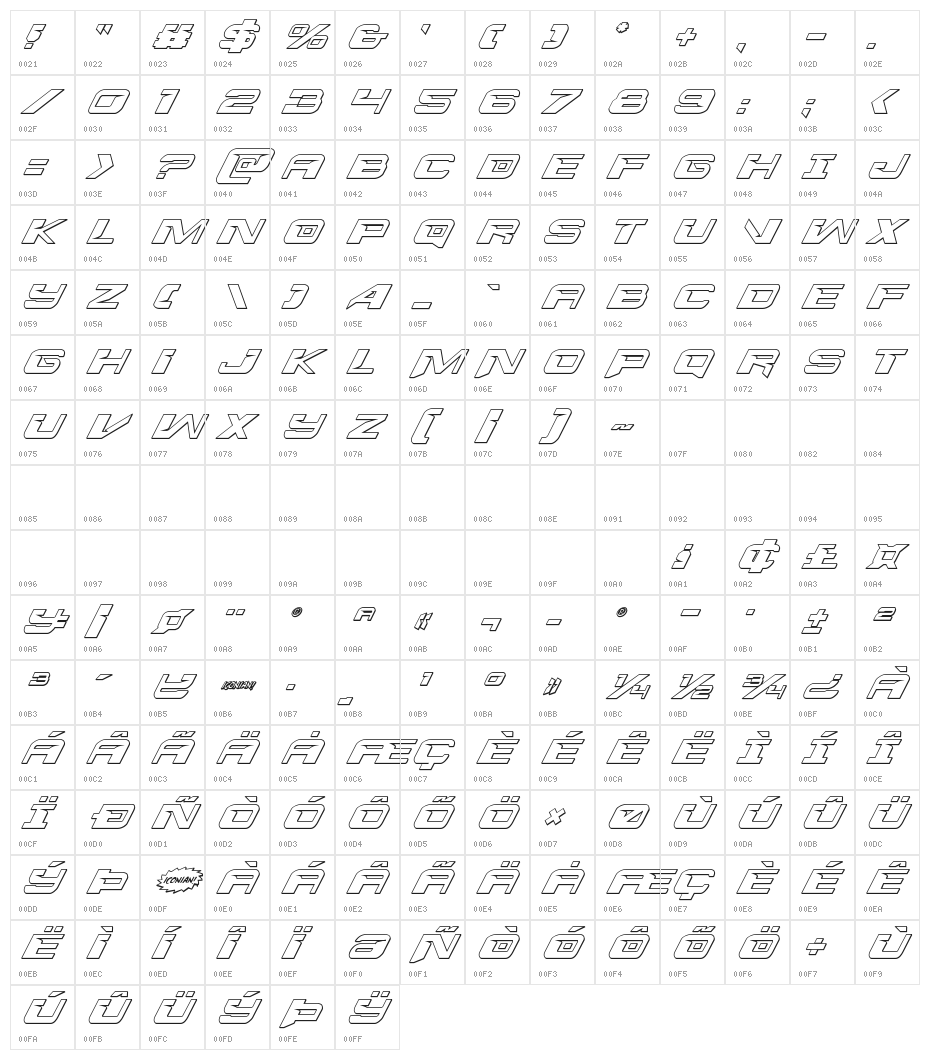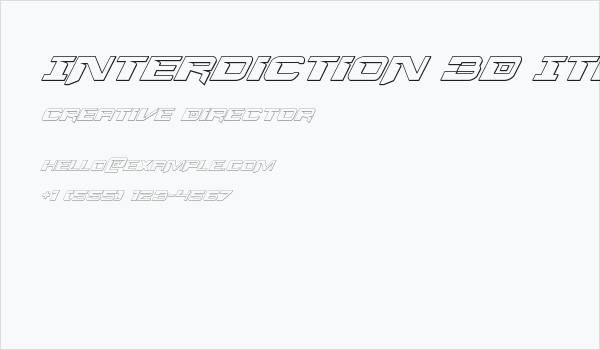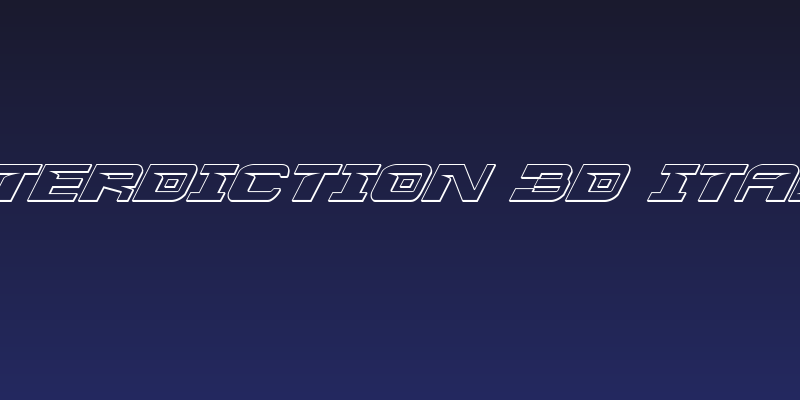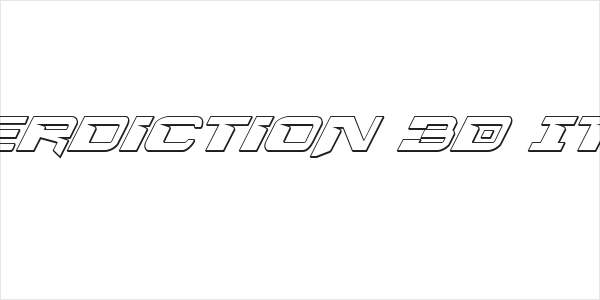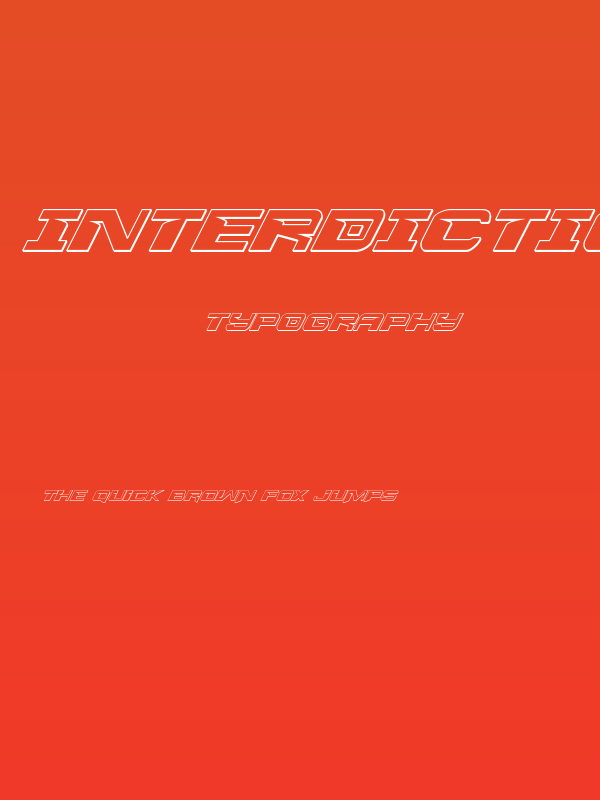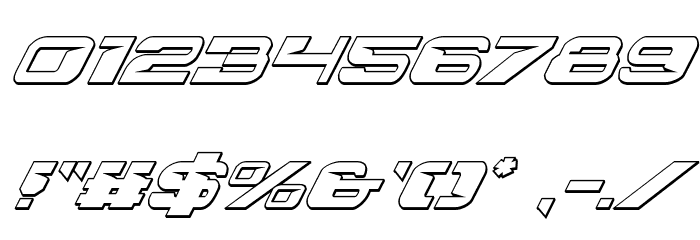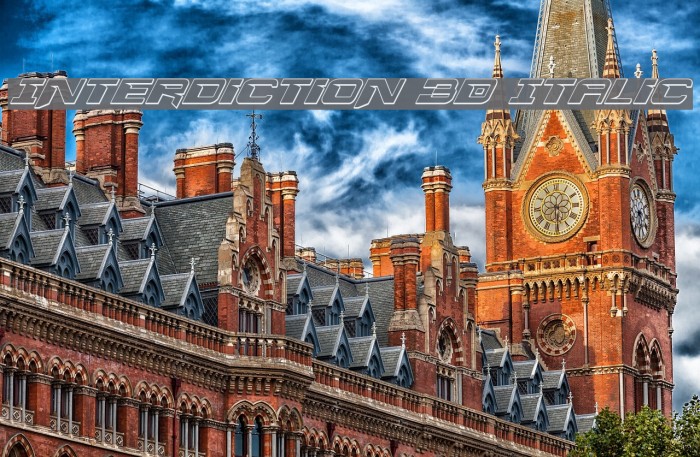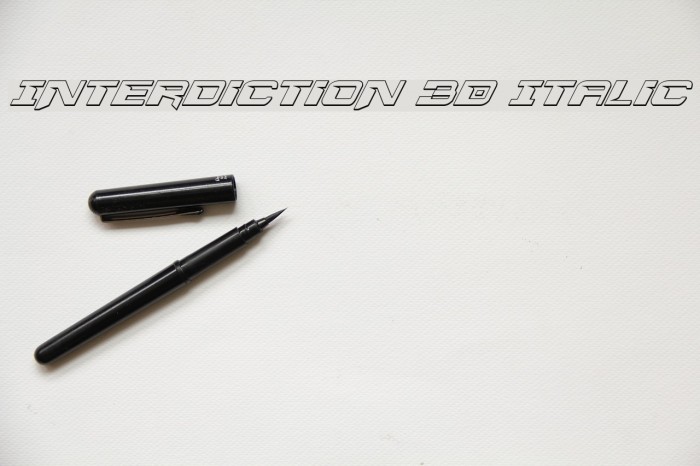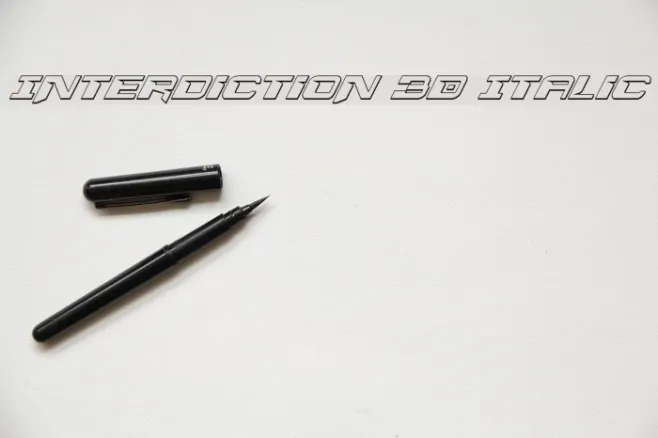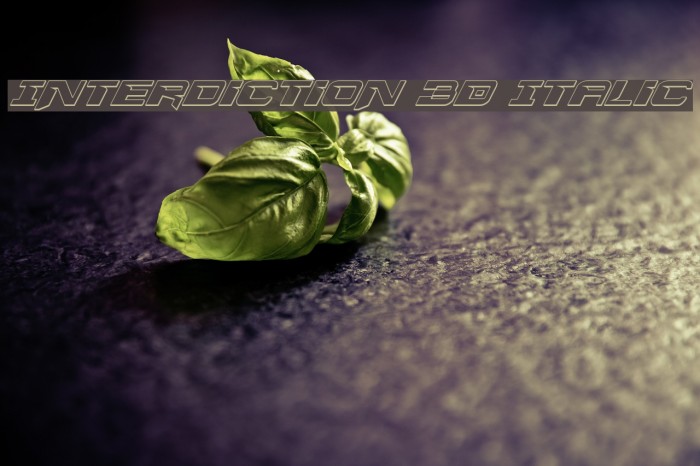
Interdiction 3D Italic Font
✎ Outline
| Projets proposés | Ideal for video game titles, tech company logos, futuristic posters, and sci-fi themed designs. |